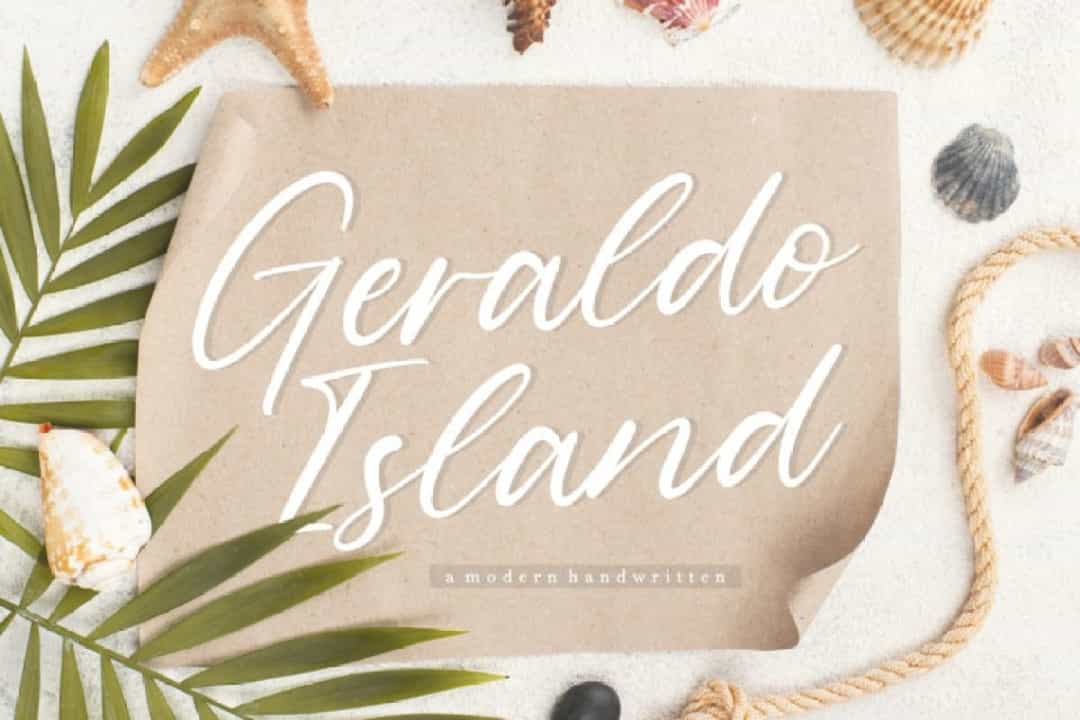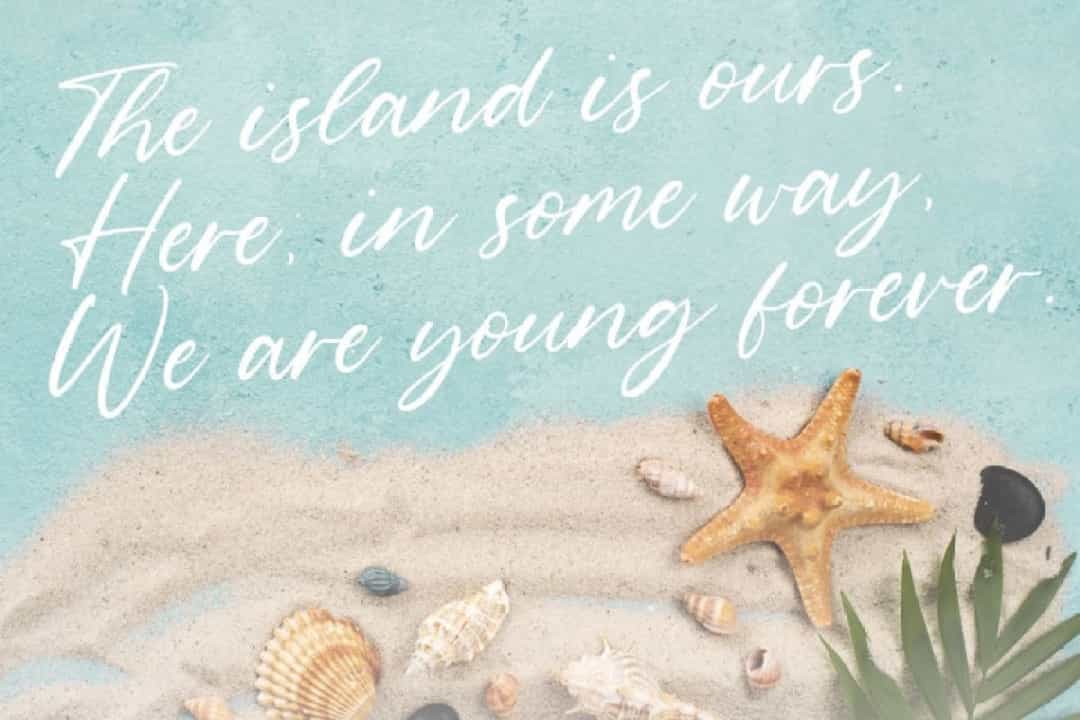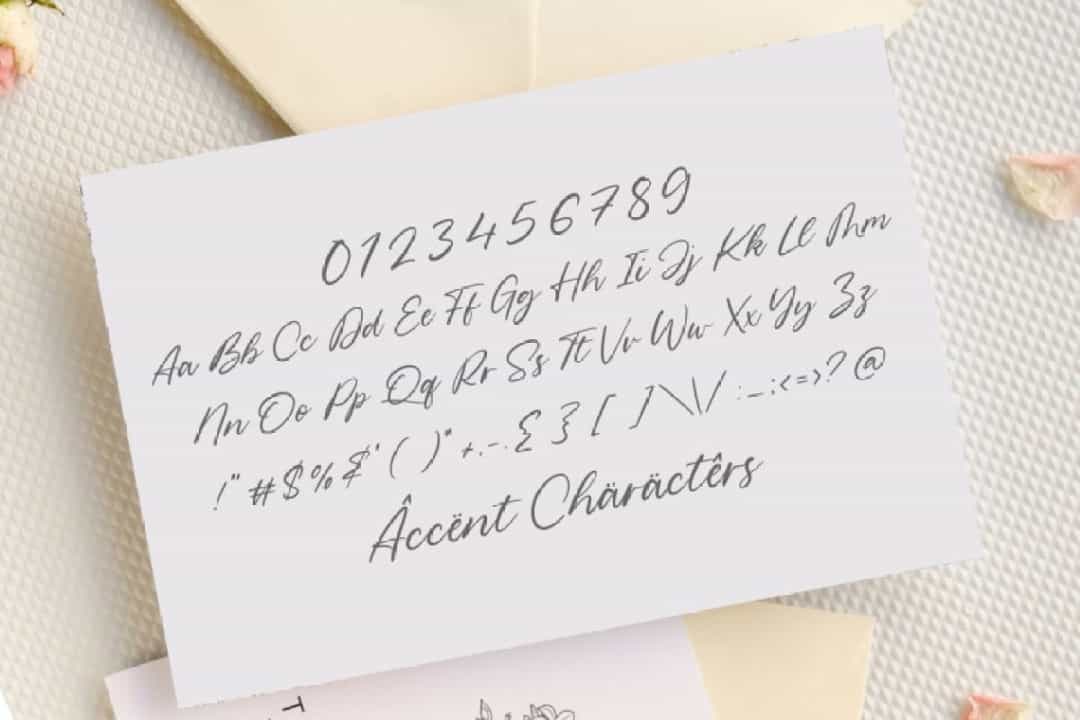
First of all, Geraldo Island is a modern handwritten font, that is why it can be recommended for designing different projects. It is best for packaging, brands, magazines, weddings, social media or to type words on top of the image. The font type used is TTF and Geraldo Island also has multilingual support.